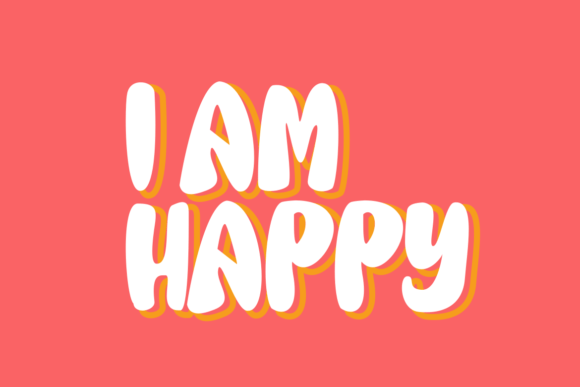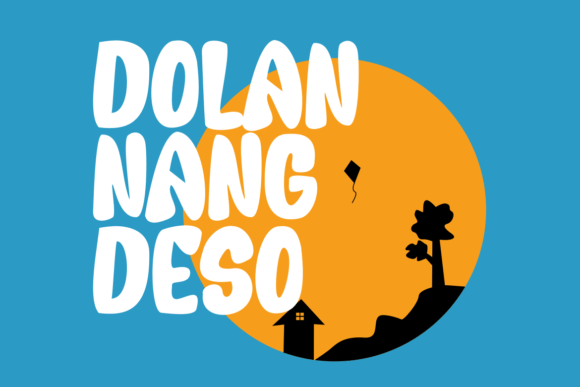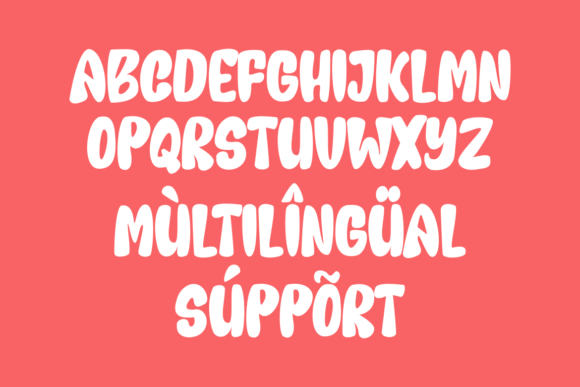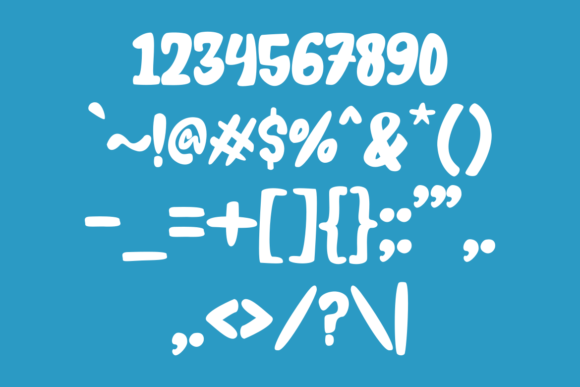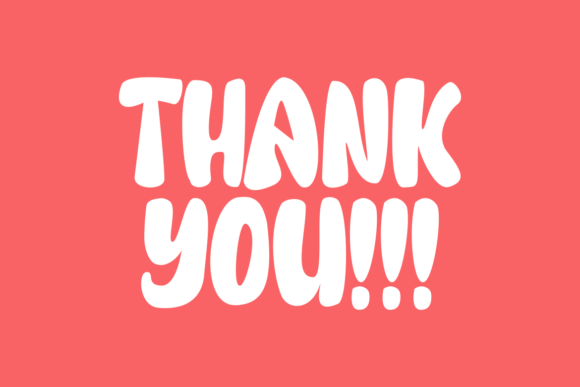
Introduction to Leran Zone Font
Leran zone is a cartoon-style display font with incredibly joyful characters.
It is perfect for any creative project that requires easy-to-read yet inviting typography .
Key Features of Leran Zone Font
Why Choose Leran Zone Font?